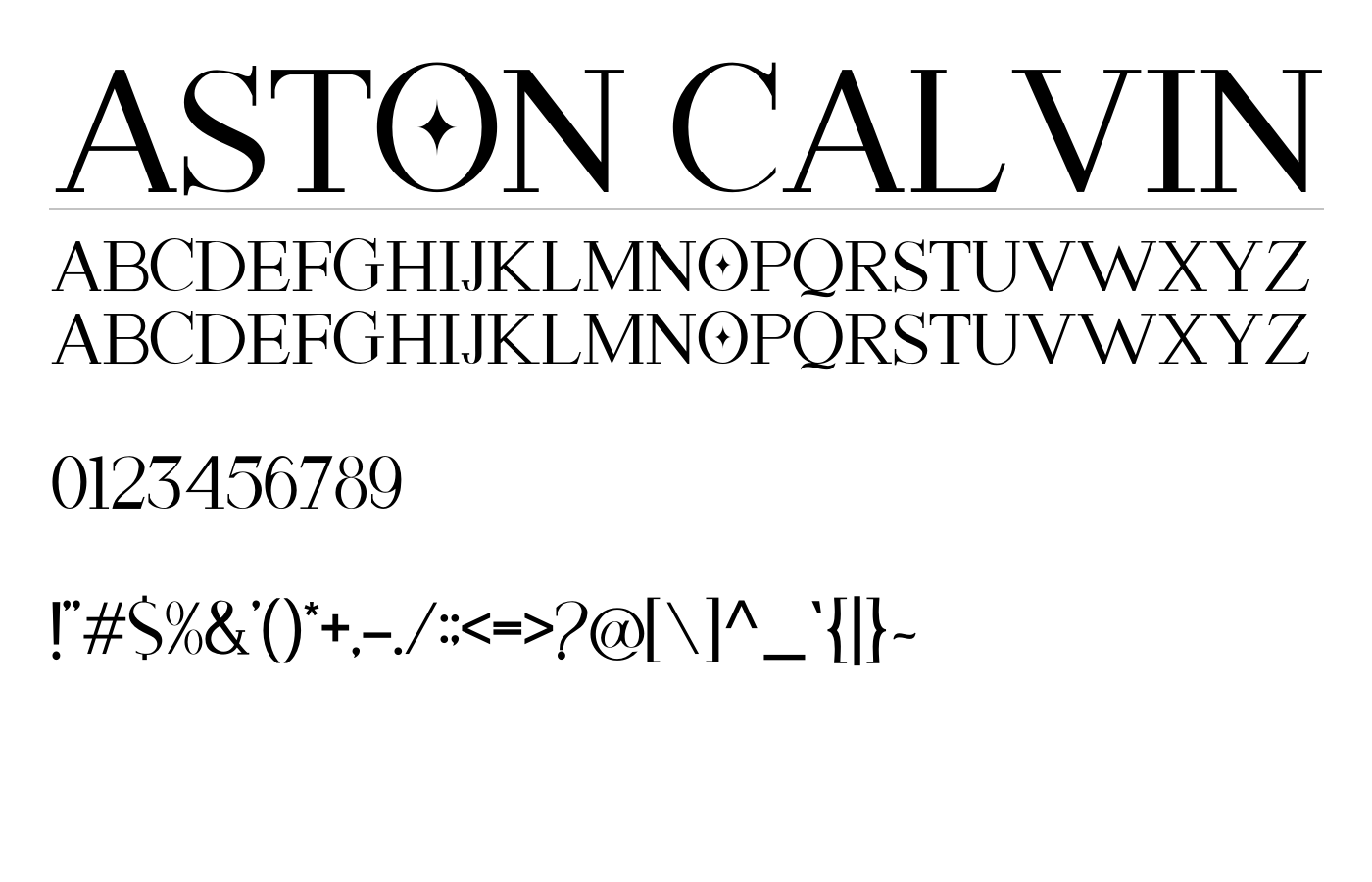
Aston Calvin is a refined serif typeface with a modern elegance, characterized by its high contrast between thick and thin strokes and delicate, sharp serifs. Its tall, narrow letterforms and unique decorative elements, like the star-shaped counters, give it a sophisticated and distinctive look that works beautifully for luxury branding, editorial headlines, and upscale packaging. This font’s classic yet contemporary style lends itself well to projects aiming for a stylish, polished, and memorable impression.
ASTON CALVIN Font
About ASTON CALVIN Font